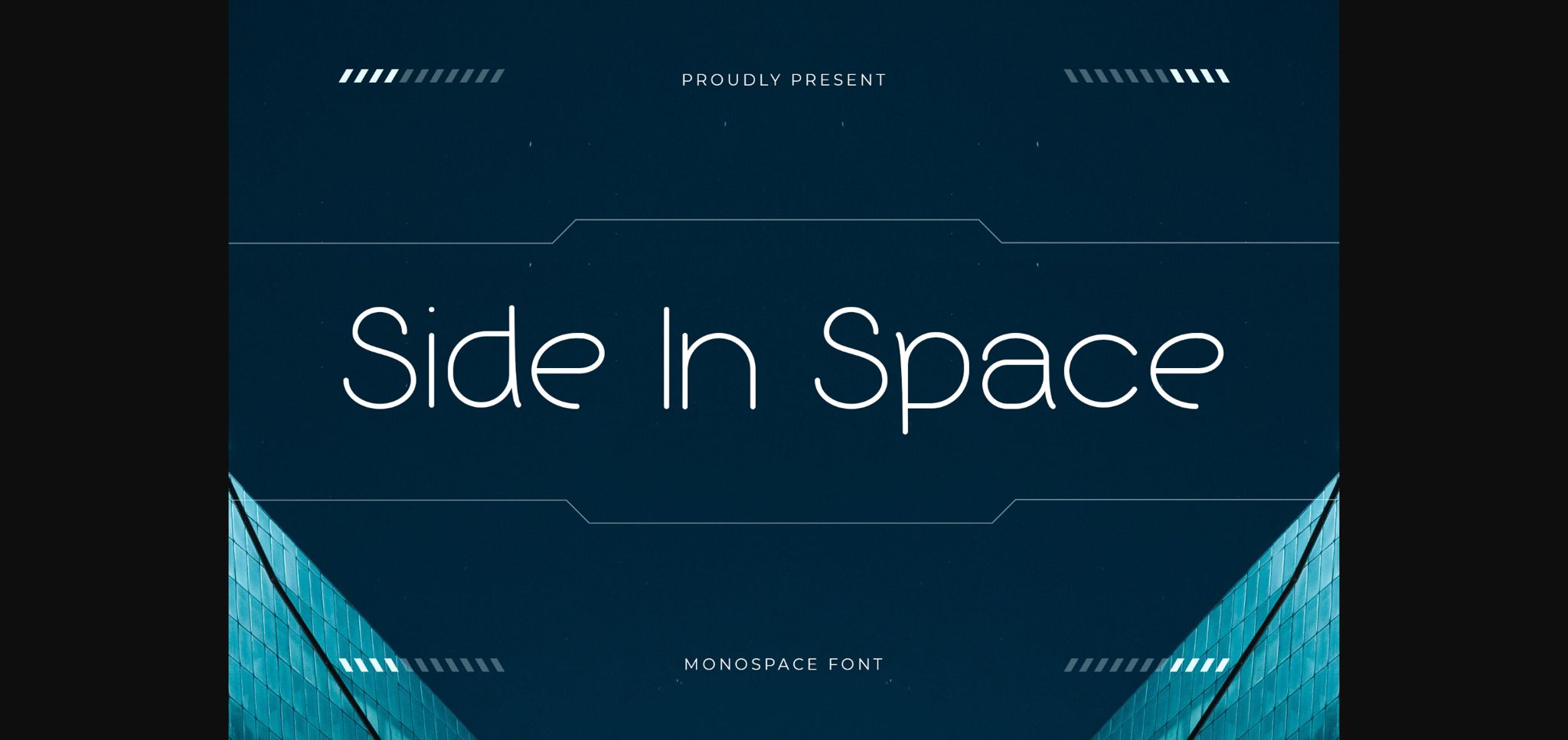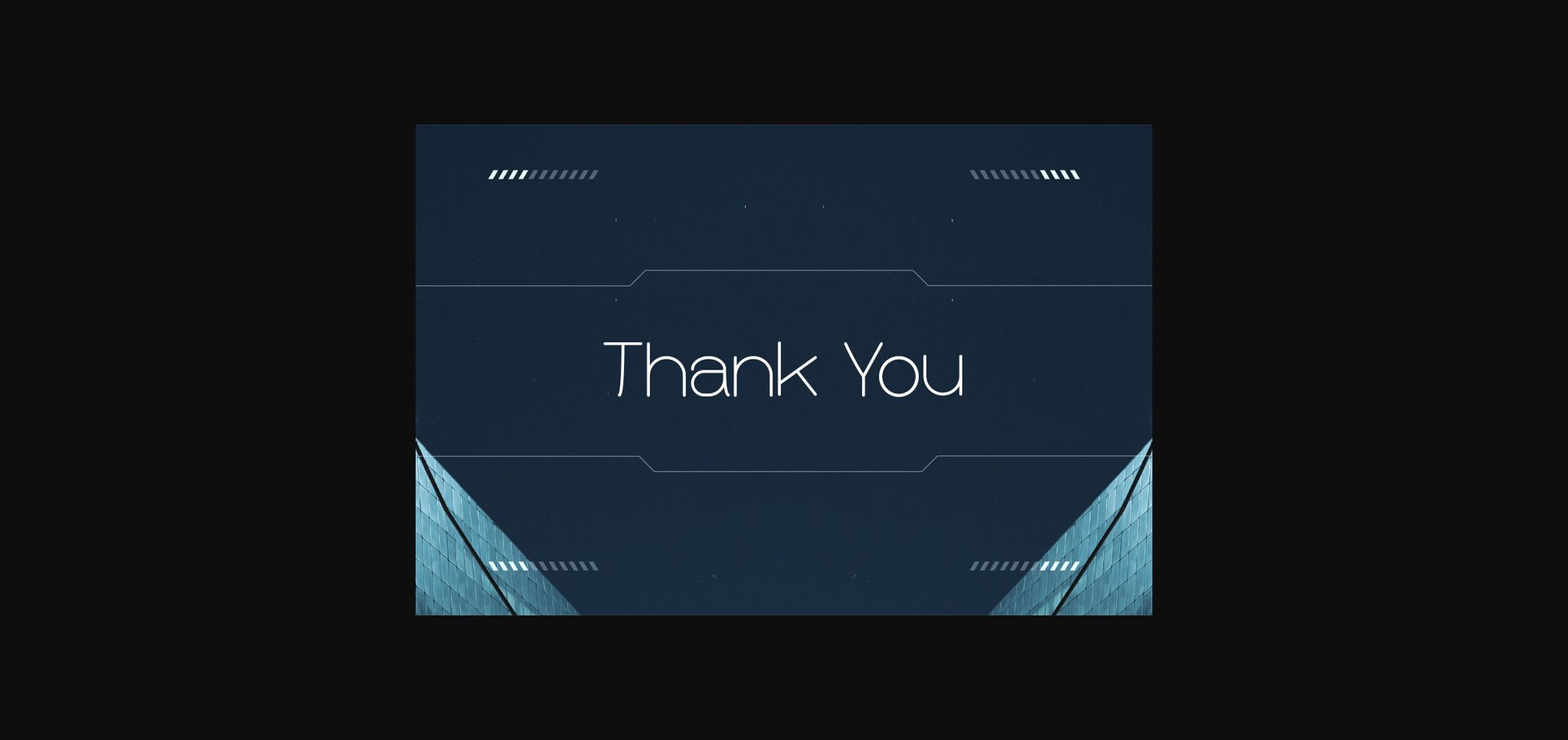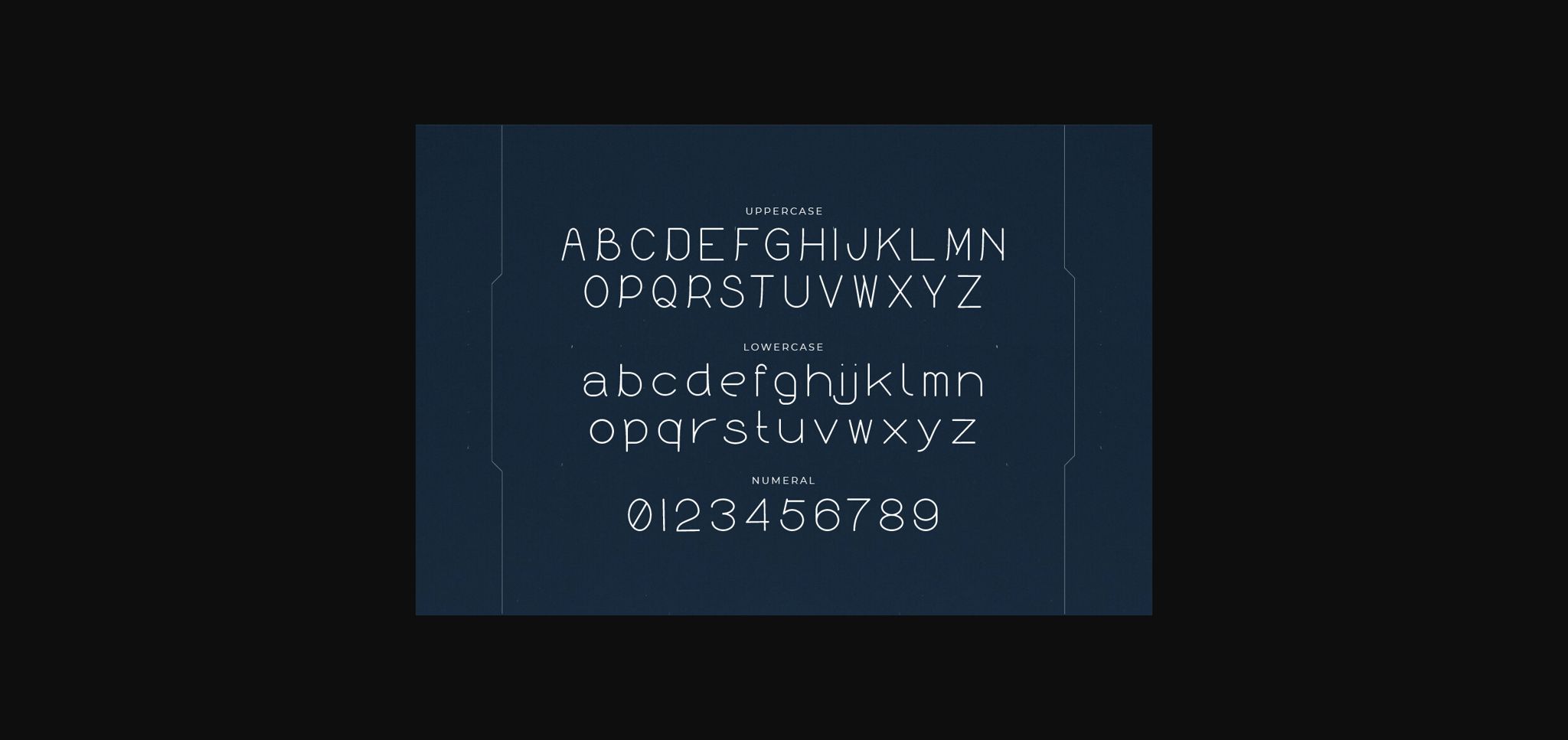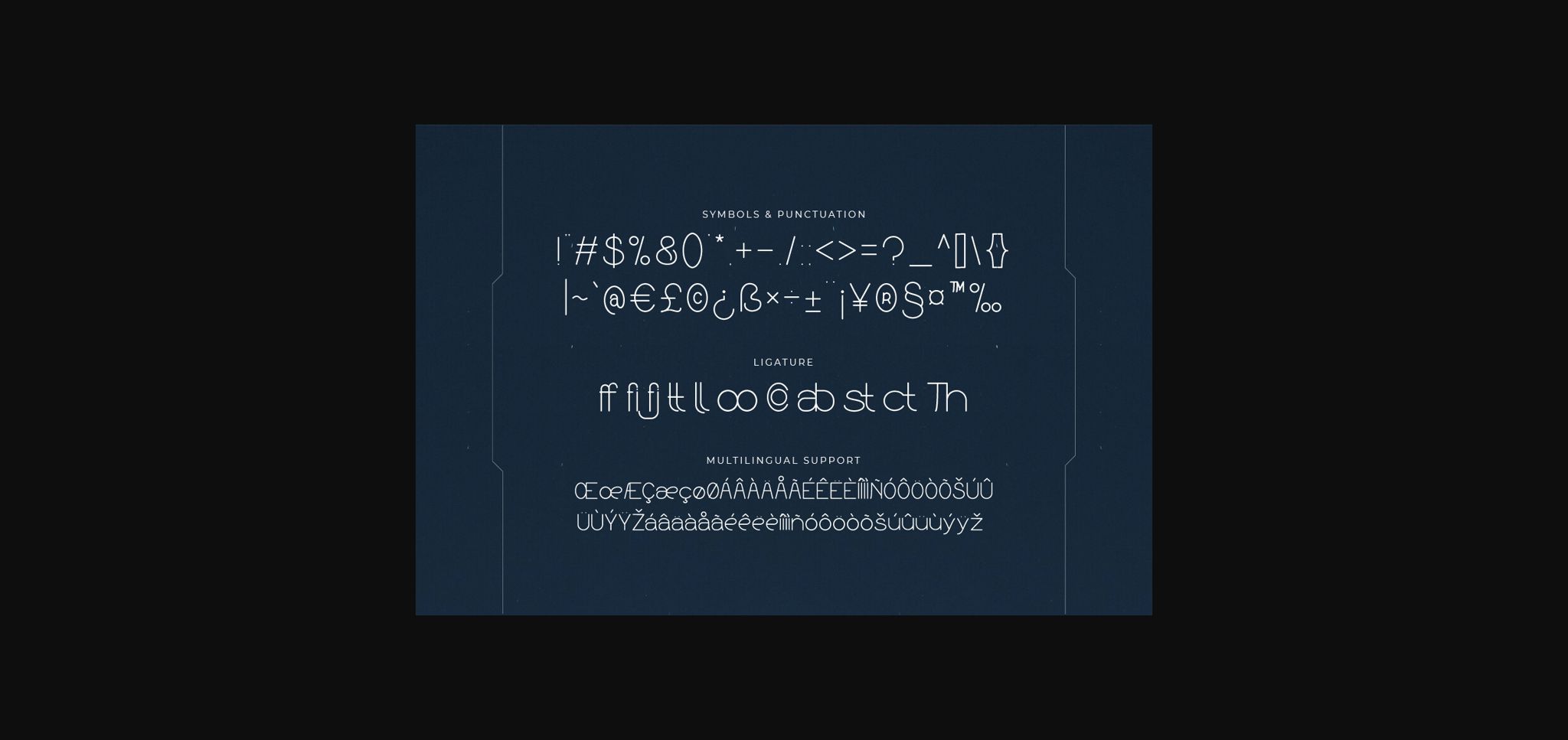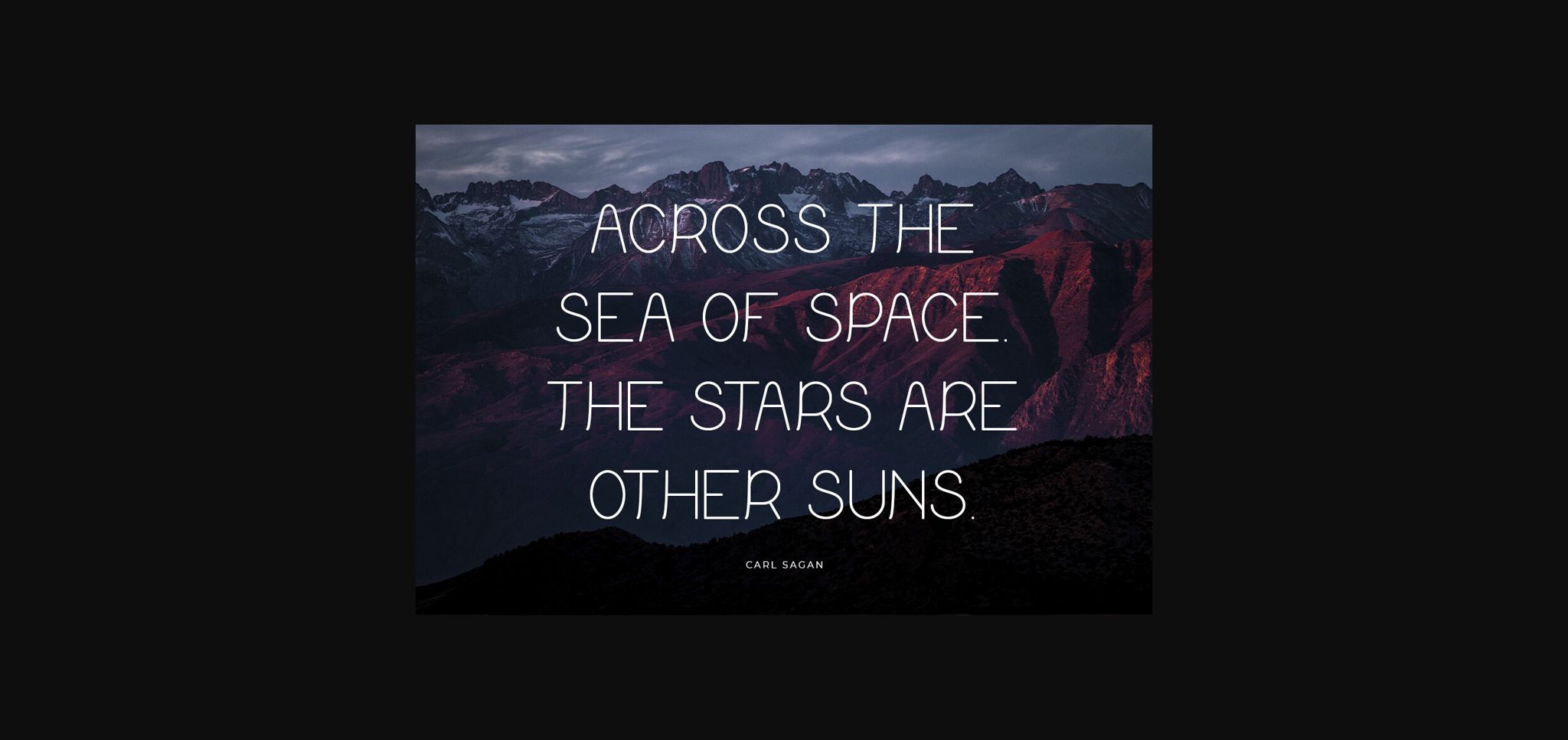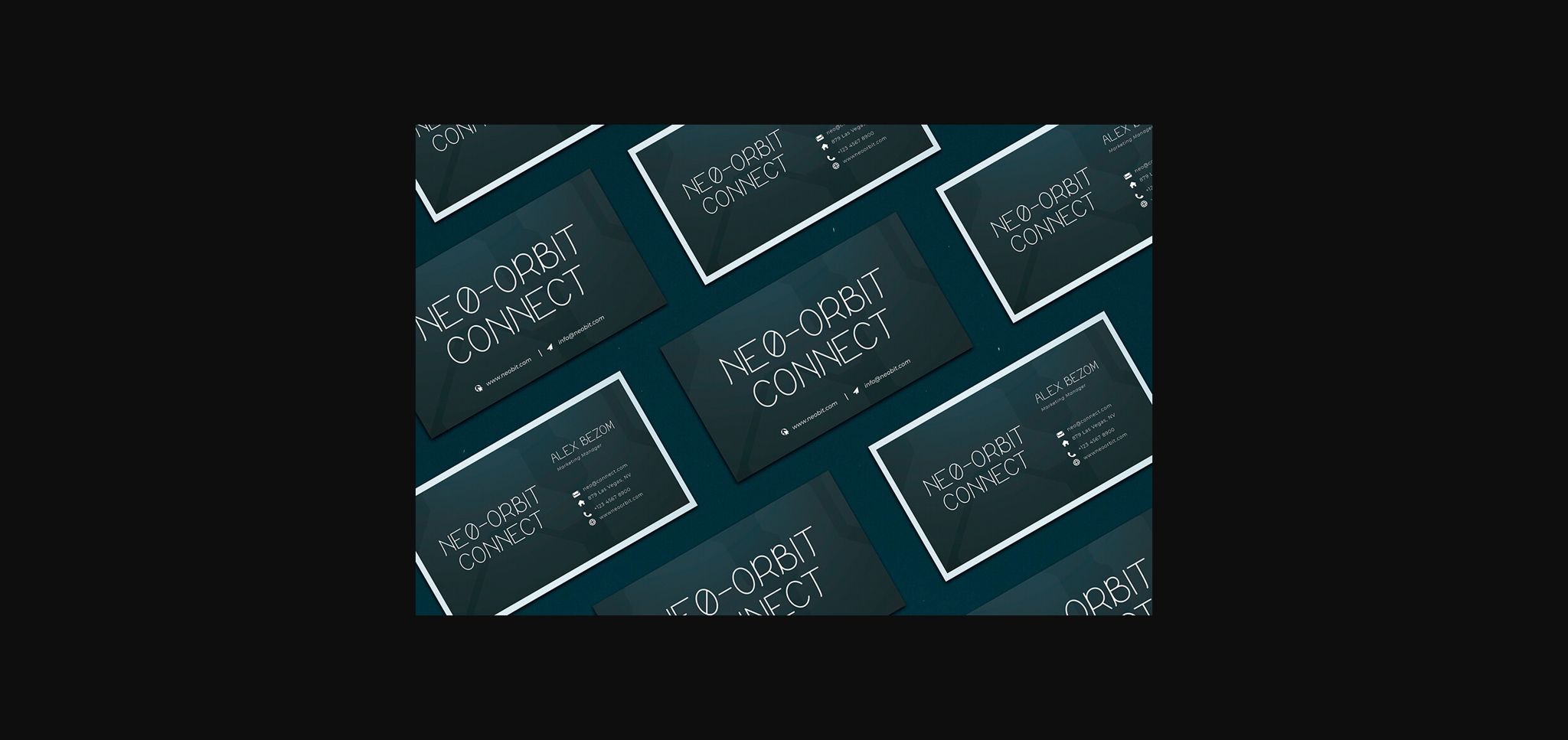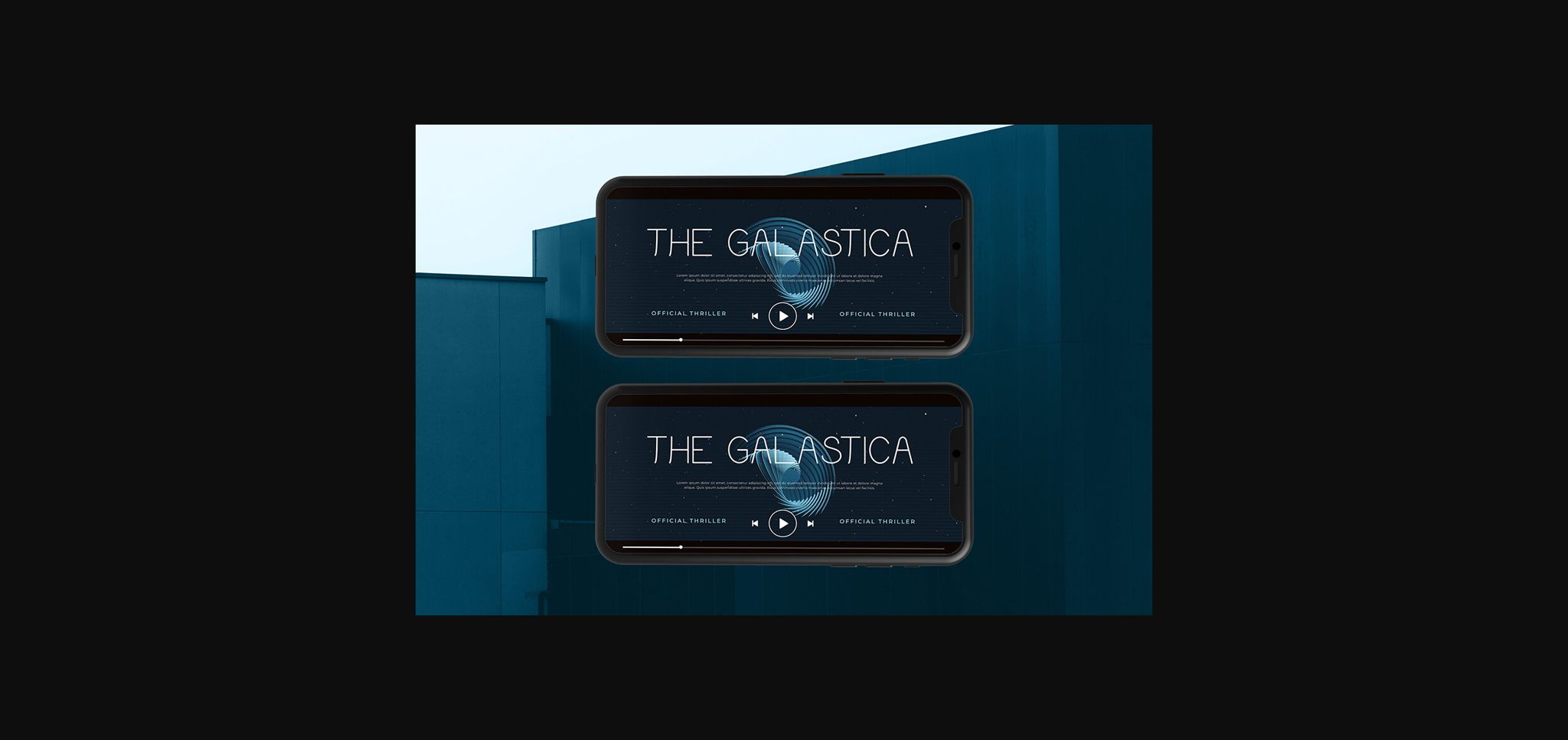
About Side in Space Font
Embark on a journey through design with “Side In Space” – a monospace font that merges simplicity with futuristic allure! With its structured and uniform letterforms, “Side In Space” offers a modern twist on the classic monospace style. Each character is meticulously crafted to balance elegance and readability, making it perfect for coding, tech interfaces, contemporary branding, and more.